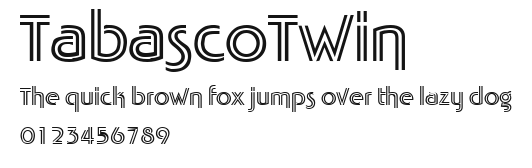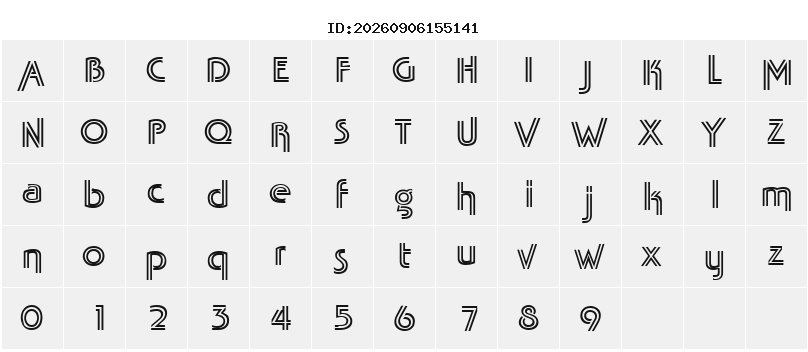
• Font Name: TabascoTwin
• Font ID: B & P Graphics Ltd.:TabascoTwin
• Full Font Name: TabascoTwin
• Version: B & P Graphics Ltd.:06.04.1993
• PostScript Name: TabascoTwin
• Copyright: (C) 1993 B & P Graphics, Ltd.
About TabascoTwin.ttf
TabascoTwin.ttf is a modern, elegant sans-serif font designed for ultimate readability and visual harmony. Perfect for branding, headlines, web design, and print materials.